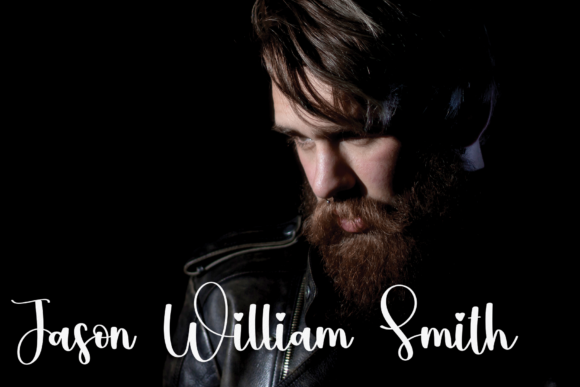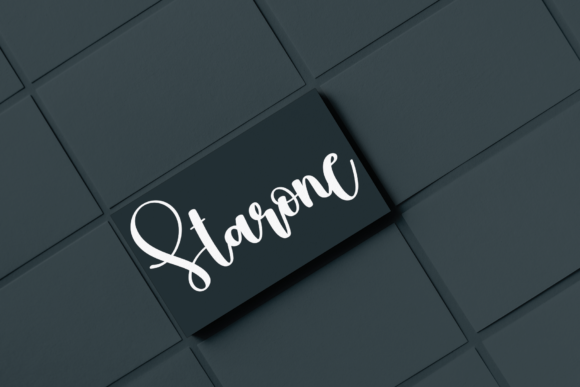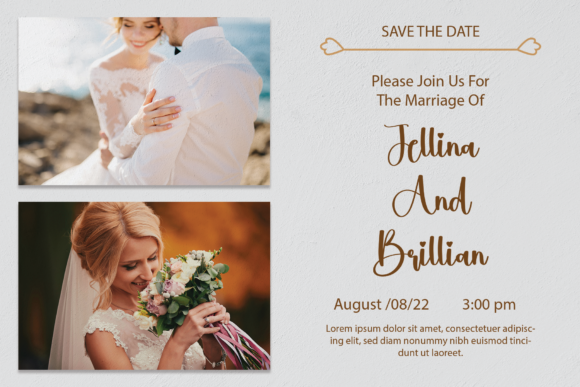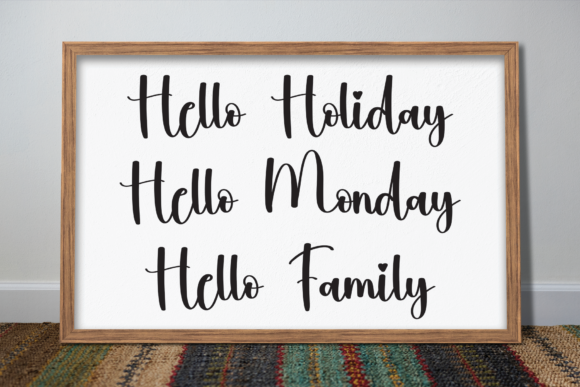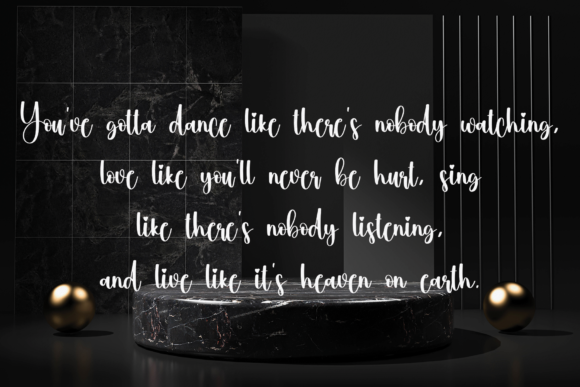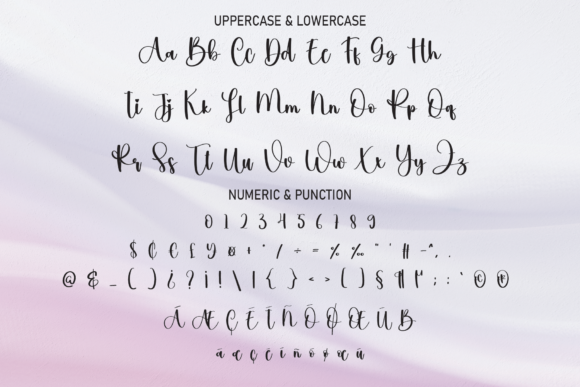
The Enchanting Bodylotion Font: Elevate Your Designs with Elegance
I’ll never forget the time I was working on a project for a luxury brand, tasked with creating a sophisticated logo that exuded elegance and refinement. As I scrolled through font after font, nothing seemed quite right – until I stumbled upon Bodylotion. This beautiful script font instantly captivated me with its flowing lines and graceful curves. I was hooked! In this article, I’ll share my experience with Bodylotion, its features, and how to make the most of this stunning font in your designs.
An Honest Review of Bodylotion
- ✨ Elegant and refined: Bodylotion’s script style is perfect for luxury brands, wedding designs, and high-end projects.
- ✅ Highly versatile: Use it for logos, titles, headings, and even body text.
- 💫 Unique character: The font’s distinctive features will set your designs apart from the crowd.
While Bodylotion is an exceptional font, there are a few things to keep in mind:
- ⚠️ Limited use for body text: Due to its script nature, Bodylotion may not be the best choice for lengthy paragraphs.
- 🤔 Pairing with other fonts: Be mindful of font pairing to ensure harmony in your design.
One of the standout features of Bodylotion is its range of OpenType features and glyphs. These allow you to customize your text with:
- Ligatures: Combine letters for a more elegant look.
- Stylistic alternates: Swap out letters for alternative forms.
- Glyphs: Access additional characters, such as ornaments and swashes.
The Story Behind Bodylotion
Bodylotion was designed with the intention of creating a font that exudes elegance and refinement. The designer aimed to craft a script font that would be perfect for luxury brands, wedding designs, and high-end projects. With its flowing lines and graceful curves, Bodylotion is sure to make a statement in any design.
Q: What type of projects is Bodylotion best suited for?
A: Bodylotion is ideal for luxury brands, wedding designs, high-end projects, and any design that requires an elegant, refined look.
Q: Can I use Bodylotion for body text?
A: While Bodylotion is a beautiful font, it’s not recommended for lengthy paragraphs. Its script nature makes it better suited for titles, headings, and short text elements.
Q: Is Bodylotion a difficult font to pair with other fonts?
A: Like any script font, Bodylotion can be a bit finicky when it comes to pairing. However, with a little experimentation, you can find the perfect complement to this elegant font.